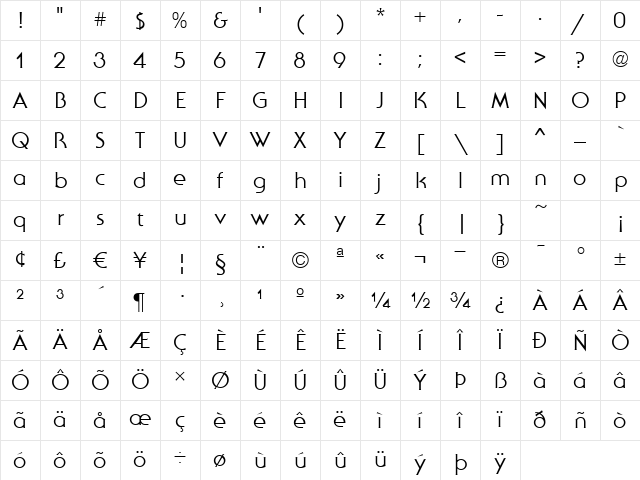
Flare-S690 Regular
Design Context for Flare-S690
Flare-S690 is a composed and adaptable typeface that performs quietly and consistently across a wide range of design contexts.